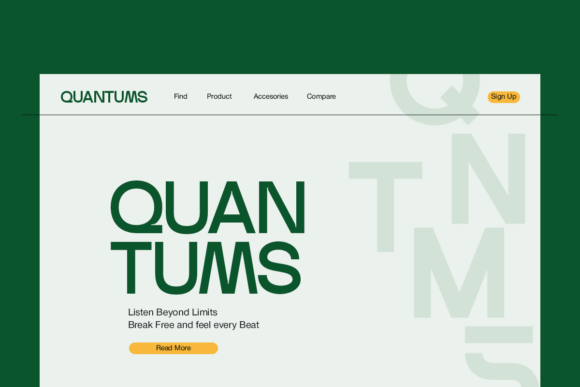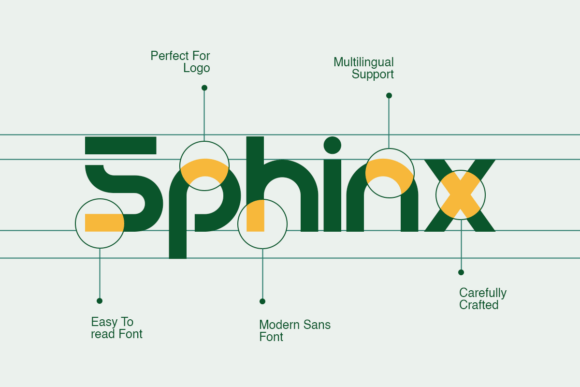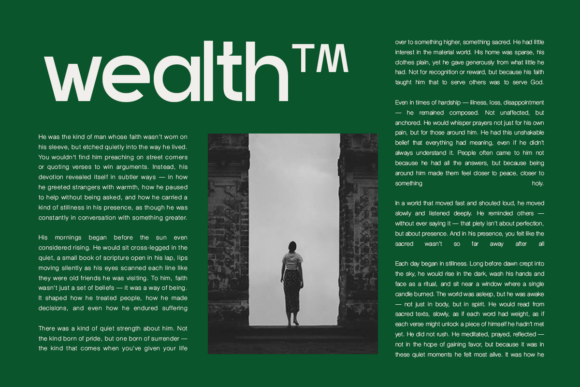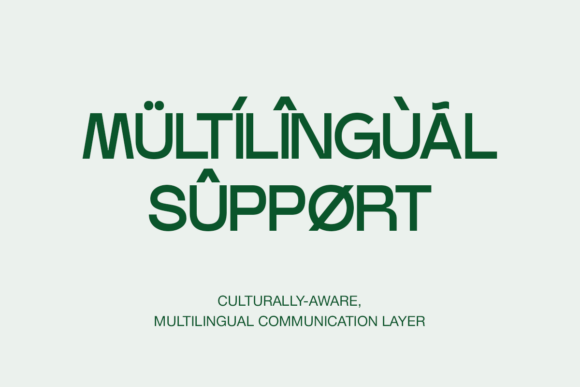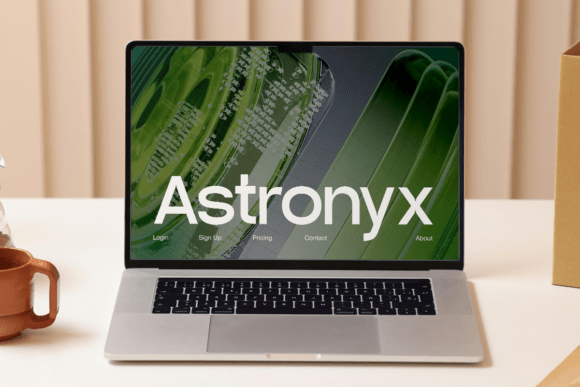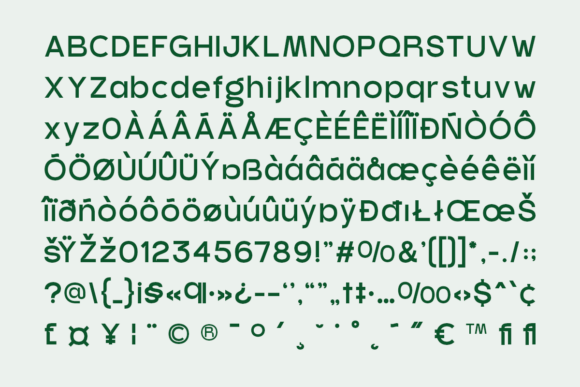
Introduction to Quera Font
Imagine you’re working on a high-stakes creative project, and every design decision counts. You need a font that exudes professionalism, clarity, and trustworthiness – a font that makes your message shine through the noise. This is where Quera Font comes in – a modern geometric sans-serif font designed to elevate your corporate identity, editorial layouts, and digital platforms.
As a designer, you know the importance of having the right design resource at your fingertips. Quera Font delivers, offering a clean and balanced aesthetic that’s perfect for titles, body text, and digital interfaces. With its high-quality design and transparent background, Quera Font is the perfect choice for branding, presentations, and websites that demand a polished look.
Whether you’re working on a free download or a high-end commercial project, Quera Font is the ideal companion for your creative journey. Its seamless adaptability, multilingual support, and sleek modern tone make it a valuable asset for any designer looking to take their projects to the next level.
Key Features of Quera Font
- High-quality, professional design suitable for creative projects and various design resources.
- Comes in a single weight, making it easy to use and integrate into designs.
- Supports a wide range of resolutions and sizes, from small to large-scale designs.
- Perfect for designers and artists looking for a clean, modern, and versatile font for their projects.
Honest Review: Quera Font
As a designer, I’m always on the lookout for new and exciting design resources to elevate my creative projects. Recently, I came across the Quera Font, and I’m excited to share my honest review with you.
- ✨ High-quality design: The Quera Font has a beautiful, modern aesthetic that’s perfect for a wide range of creative projects.
- ✨ Transparent background: The font’s transparent background makes it easy to layer and combine with other design elements.
- ⚠️ Limited character set: Unfortunately, the Quera Font has a relatively small character set, which may limit its use in certain projects.
- ⚠️ Not suitable for small text: The font’s design makes it difficult to read in small text sizes, which may be a concern for certain design applications.
Overall, I think the Quera Font is a solid addition to any designer’s toolkit. While it may have some limitations, its high-quality design and free download make it a great resource for creative projects. With a little creativity, you can work around its limitations and create something truly special.
Tips for Getting the Most Out of Quera Font
Quera Font is a high-quality font with a transparent background, making it perfect for use in creative projects. Here are some tips for getting the most out of it:
1. Use Quera Font in combination with other design elements to create a visually appealing design.
2. Experiment with different font sizes and styles to add depth and interest to your design.
3. Use Quera Font in conjunction with a high-quality image or background to create a professional-looking design.